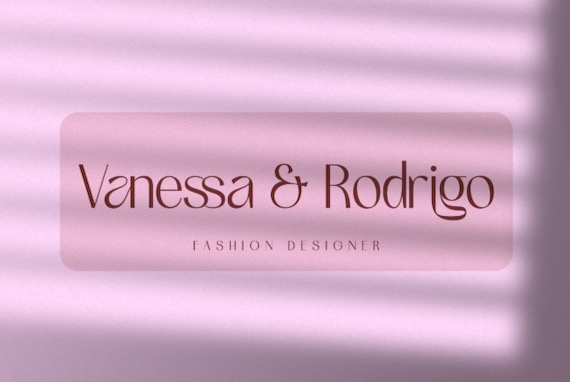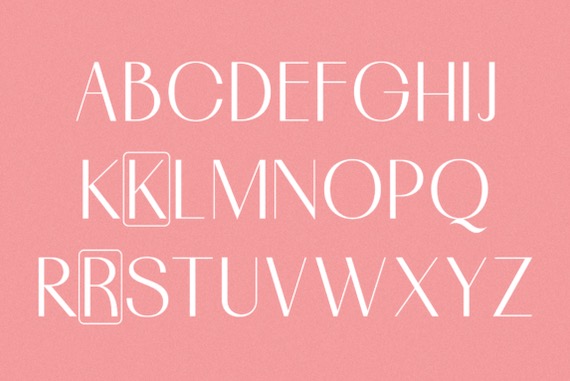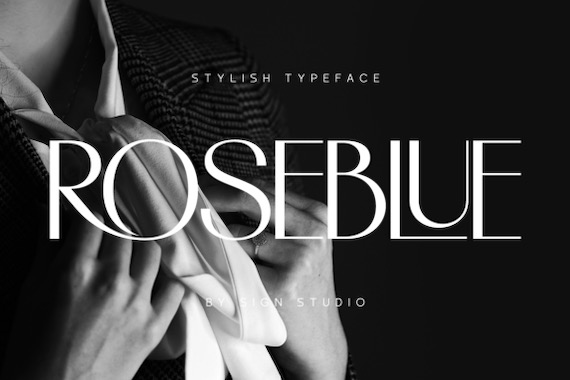
Roseblue Font
Roseblue is a smooth and modern sans serif font that was made and shared by Sign Studios. And it’s created with a lovely & romantic look. This basic font is very perfect for greeting cards, wedding invitations, posters, logotypes, product branding, and much more. Roseblue font is PUA encoded, which means you can access all of the glyphs and swashes with ease!